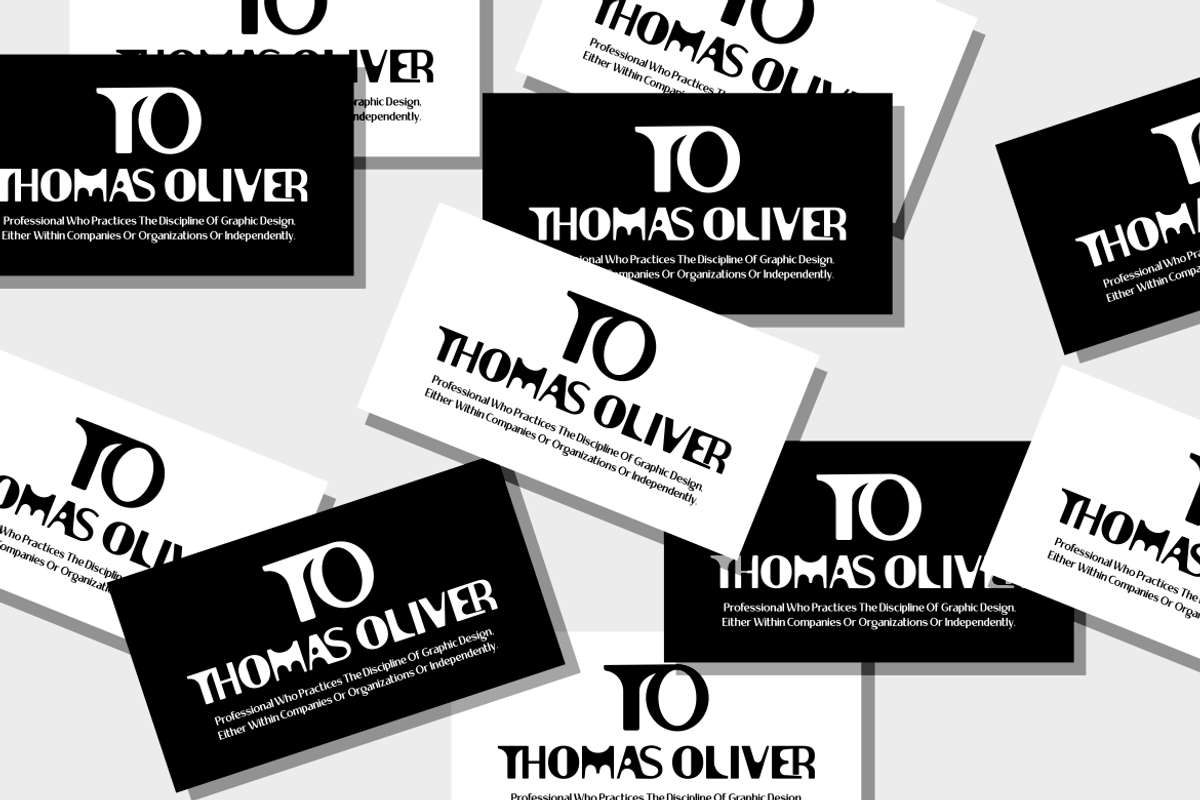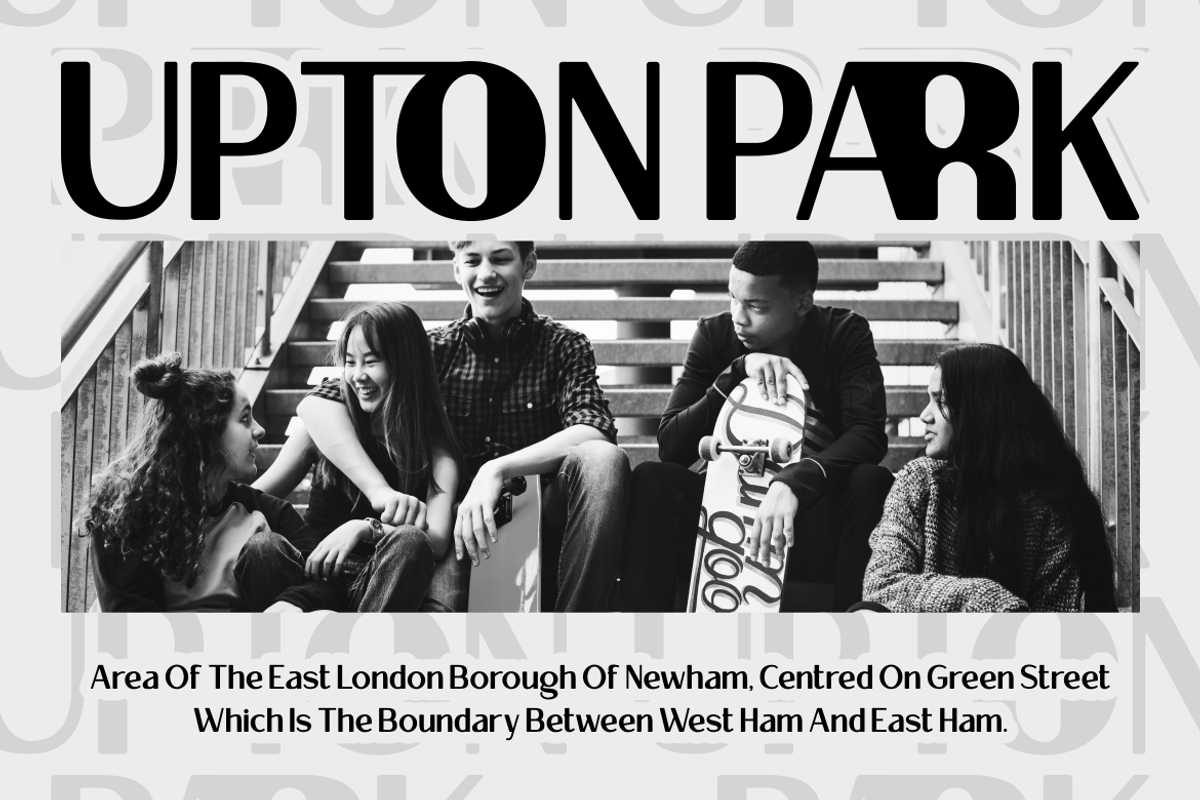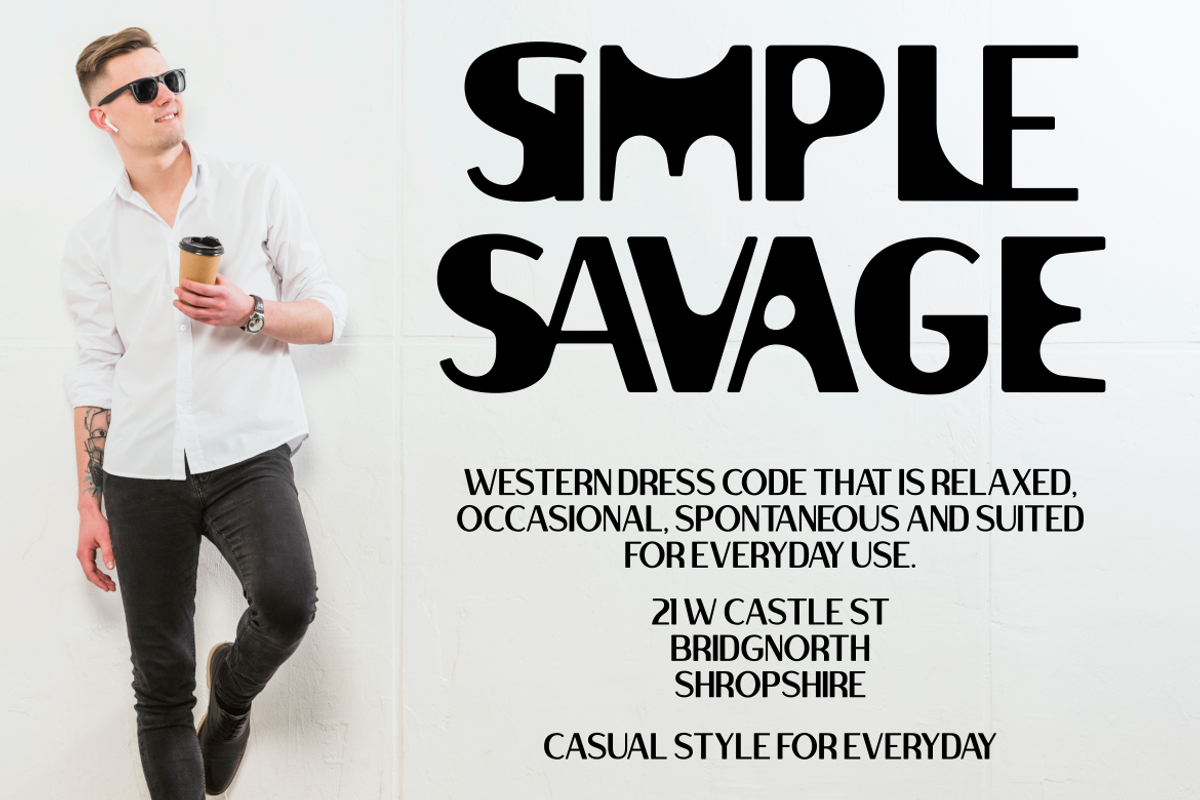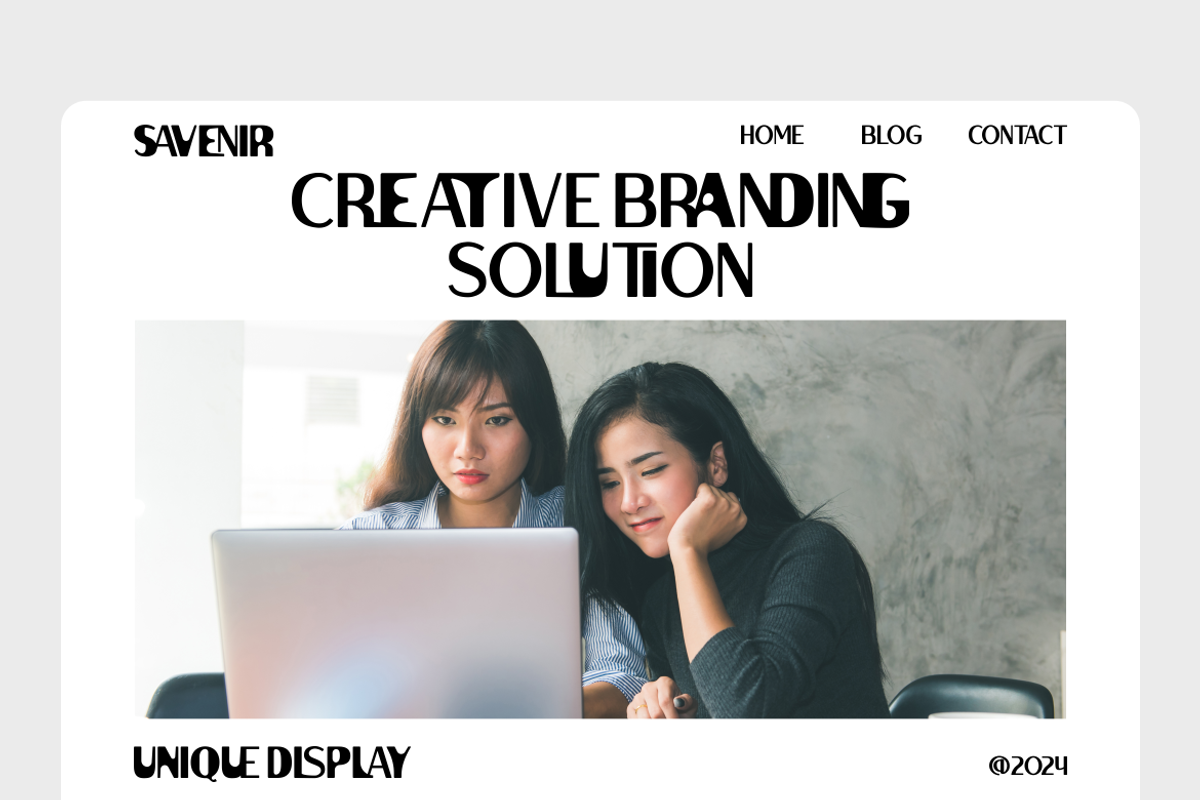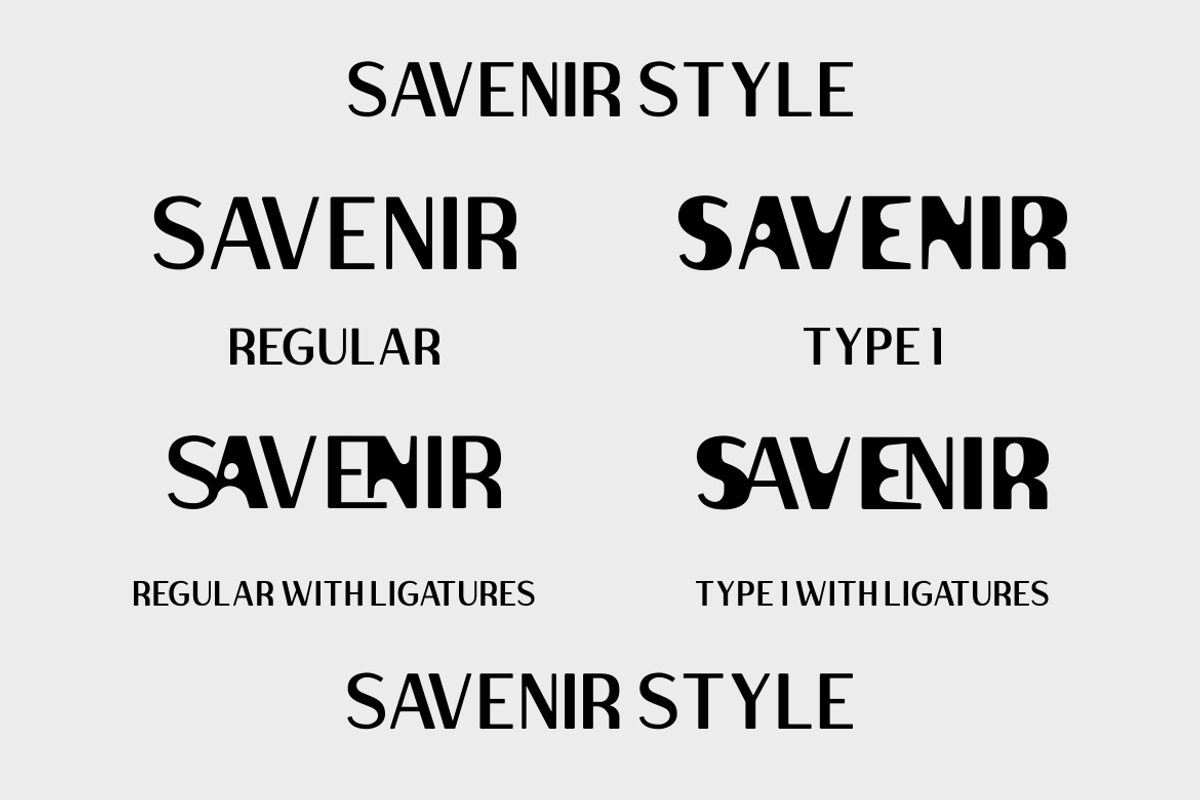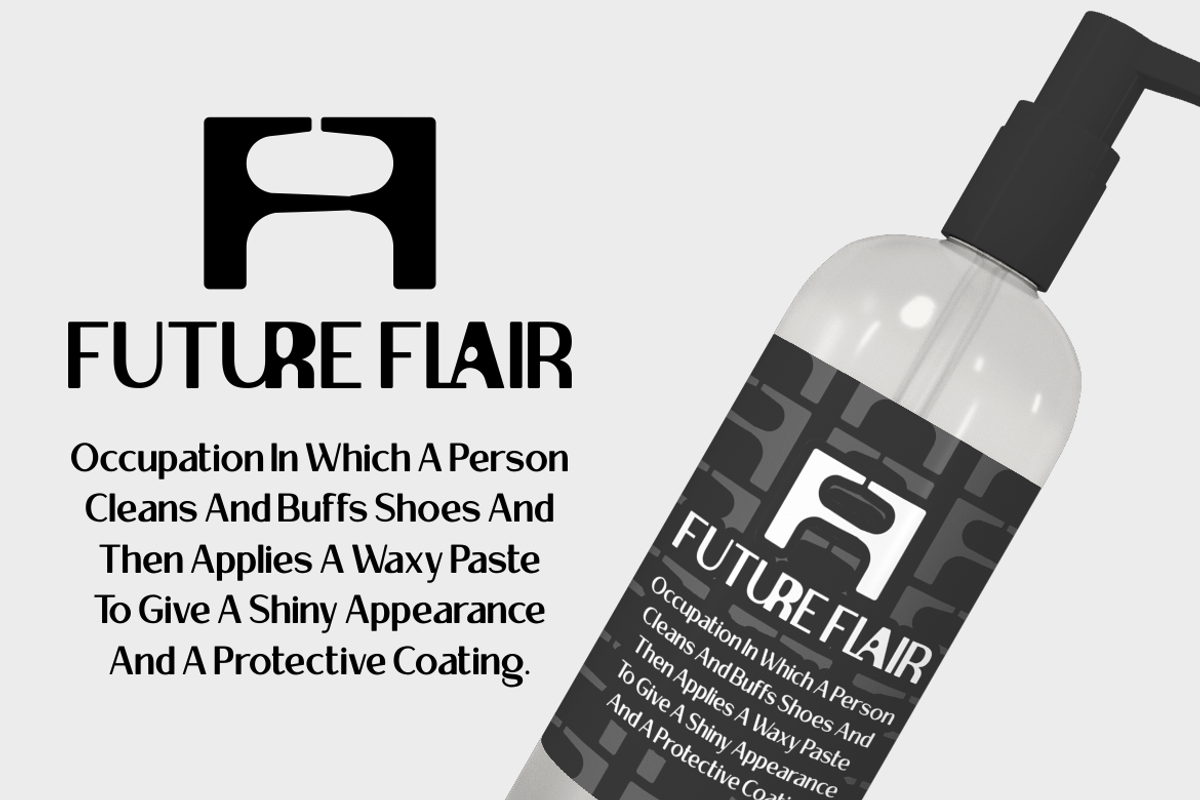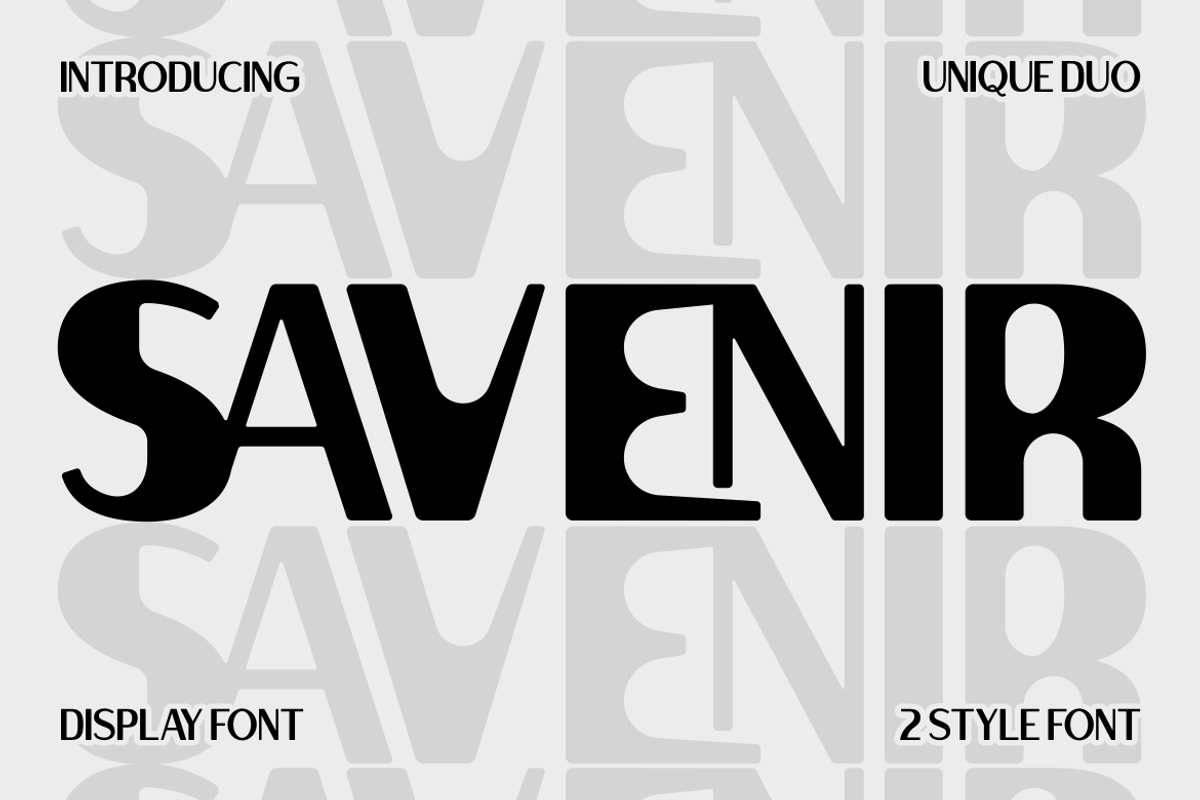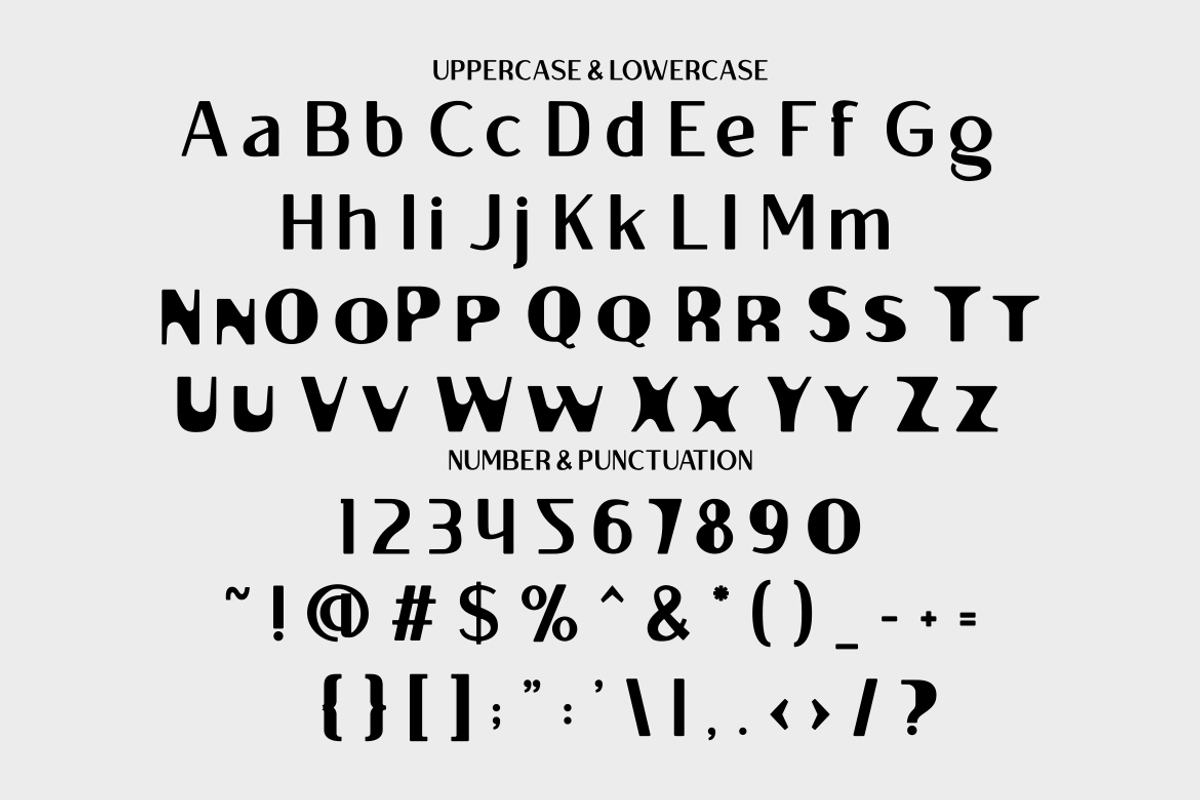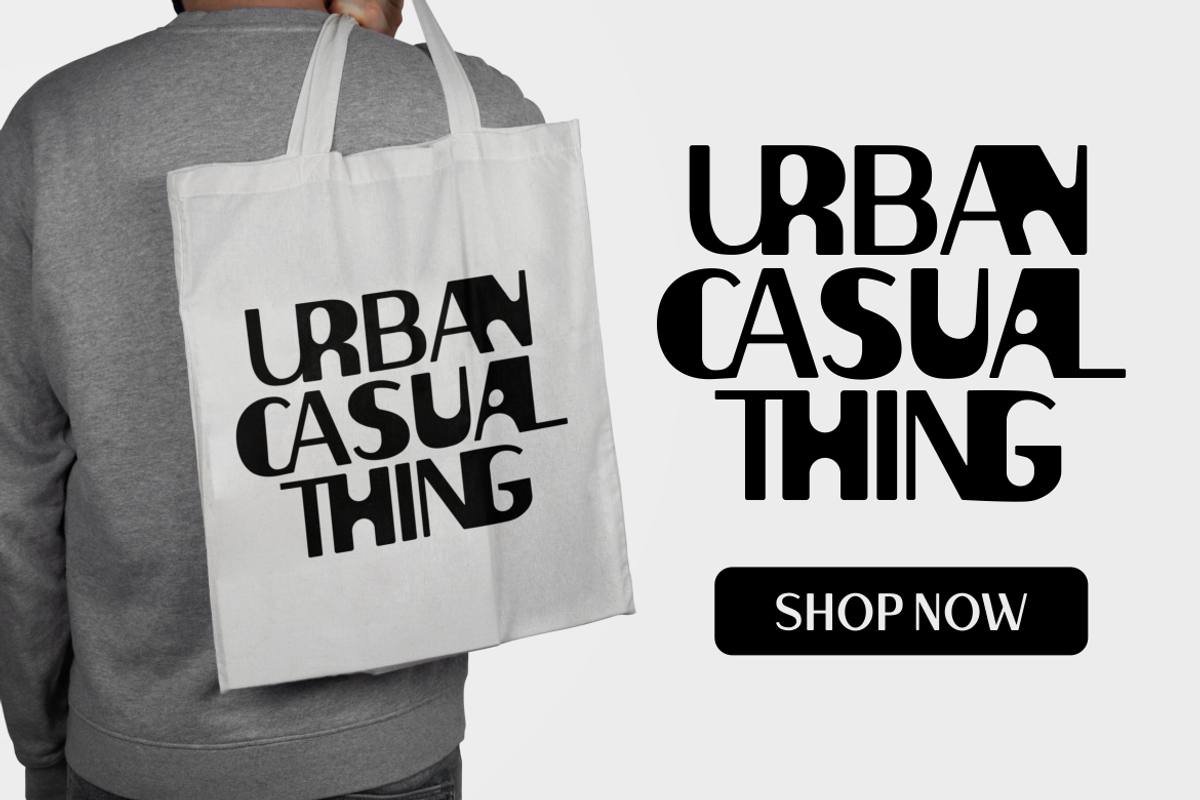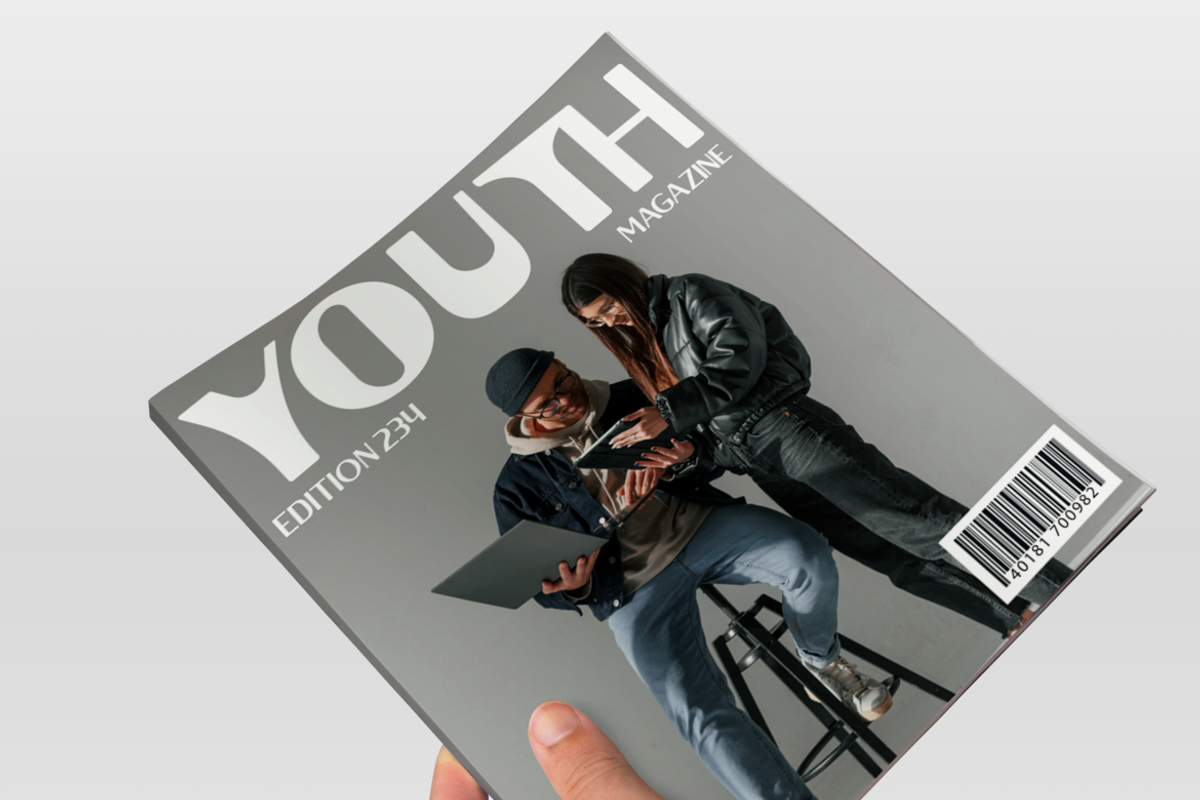
Savenir - Unique Display Font
Introducing Savenir - Unique Display Font, a modern and bold typeface designed to elevate your design projects with its distinctive style. This sans-serif display font is crafted with a contemporary flair, making it perfect for creating striking logos, memorable branding materials, and eye-catching posters. The clean, geometric shapes of Savenir give it a sleek and professional look, while its bold weight ensures your text stands out with clarity and impact. Whether you're designing business cards, crafting unique invitations, or adding a modern touch to packaging, Savenir provides the versatility and elegance needed to make your designs truly shine.
Savenir's unique design is also ideal for a wide range of other applications, including movie titles, book covers, magazine layouts, and greeting cards. The font's modern aesthetic pairs well with both digital and print media, making it a go-to choice for designers looking to create a cohesive and stylish visual identity. With Savenir, you can bring a touch of modern sophistication to your projects, ensuring your text captures attention and leaves a lasting impression. Embrace the future of design with Savenir - Unique Display Font, and let your creativity soar.